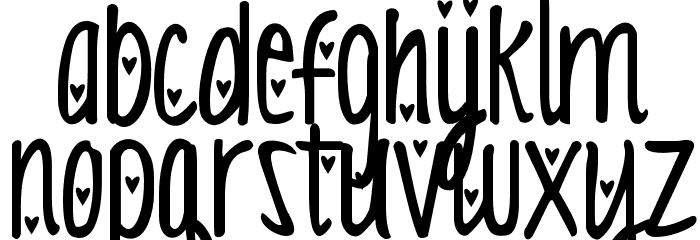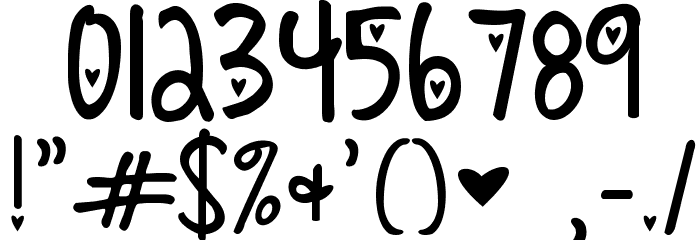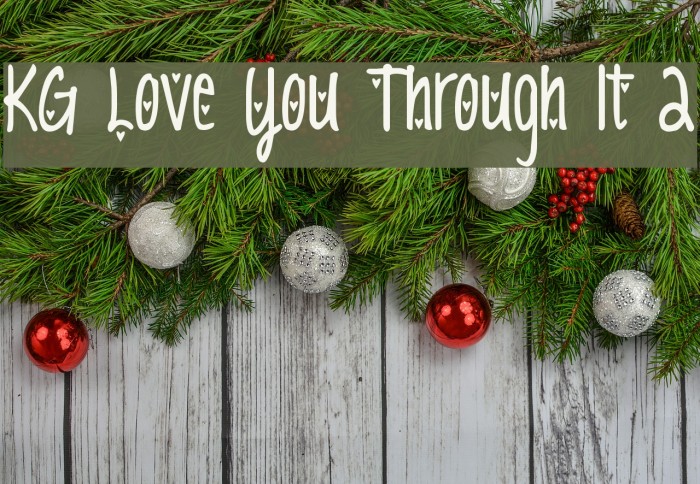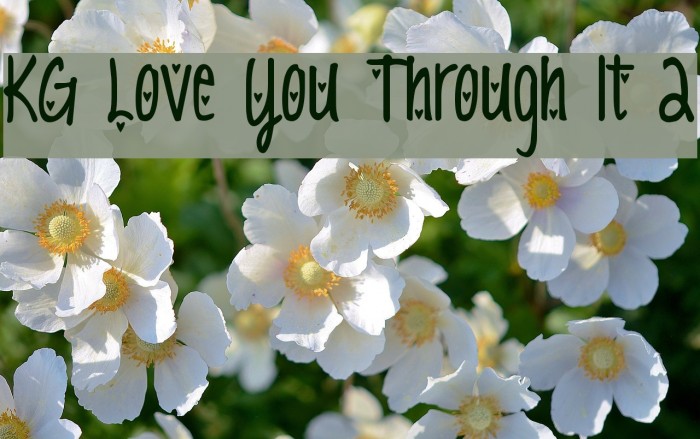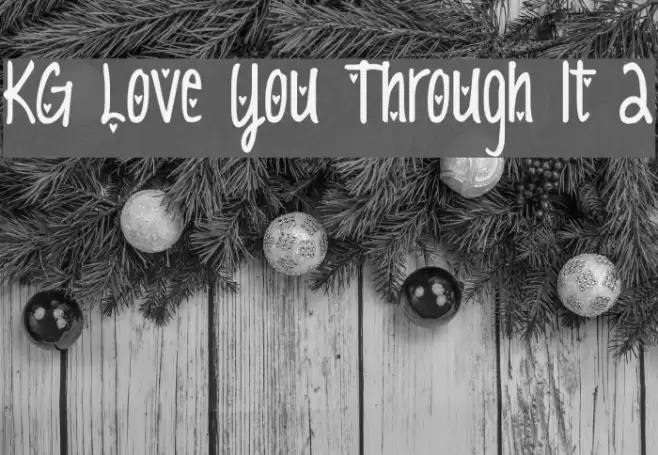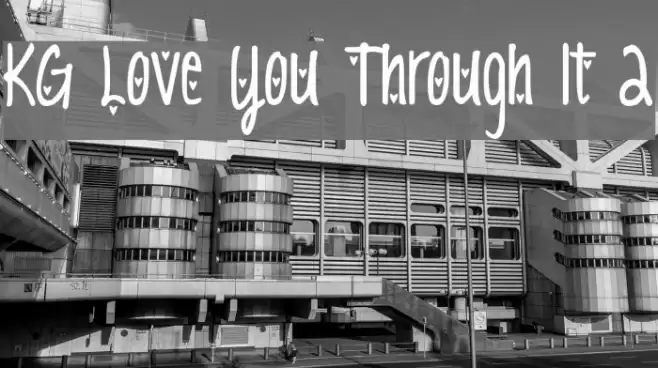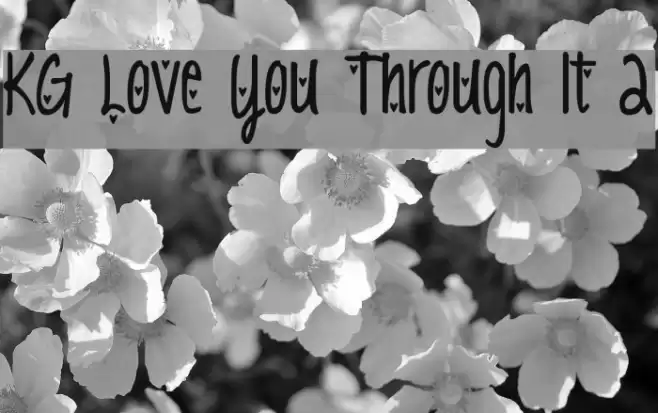
KG Love You Through It 2 Font
This playful and whimsical font features a unique design with hearts integrated into the letters, adding a touch of charm and warmth. The characters are tall and narrow, with a hand-drawn feel that conveys a sense of friendliness and creativity. The uppercase and lowercase letters maintain a consistent style, while the numbers and special characters complement the overall aesthetic. This font is ideal for projects that require a personal and heartfelt touch, such as greeting cards, invitations, or children's book illustrations.
A playful, heart-accented font with a hand-drawn, whimsical style.
- Proposed Projects: Ideal for greeting cards, invitations, children's books, and playful branding.
- Overall Style: Whimsical, Playful
- Use Case: Headlines, Logos, Decorative text